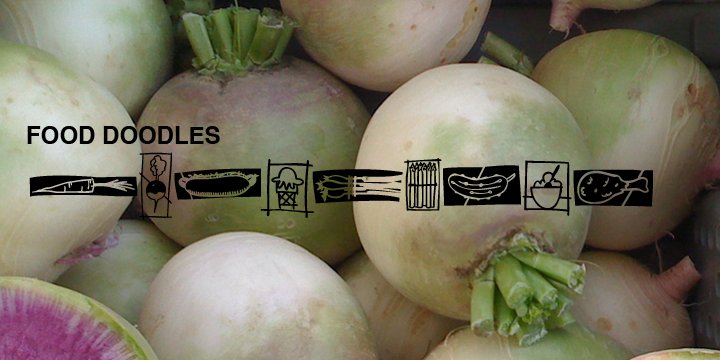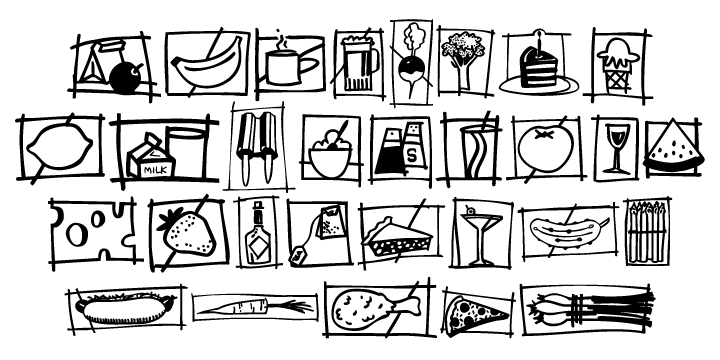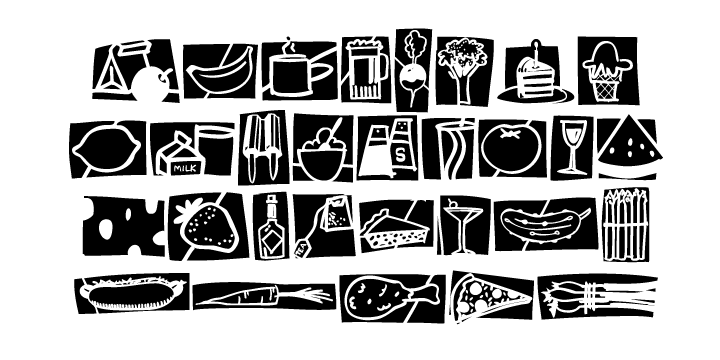
Food Doodles (1 font)
A playful dingbat/picture font of what else but food. Each tiny illustration is offered as a line drawing and a reverse. Great for menus or to add a little fun to inter office communications. Use the pickle as a header for 911 memos.